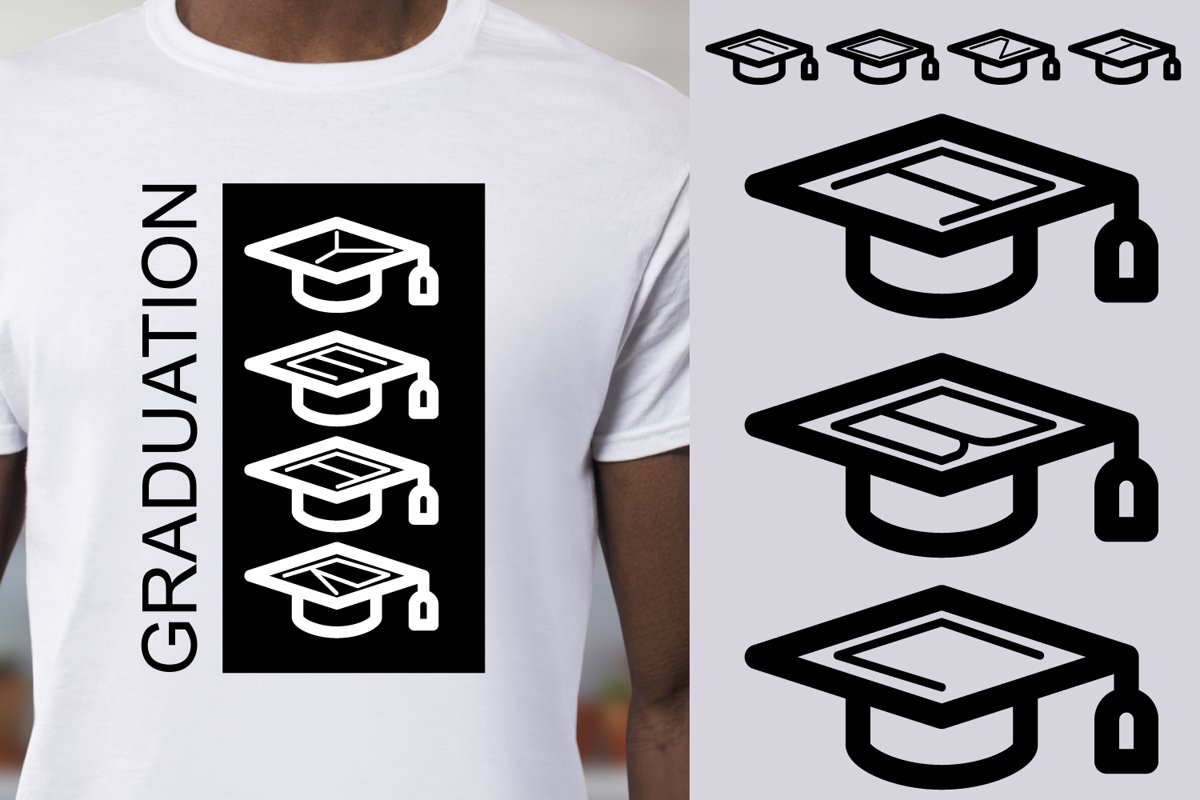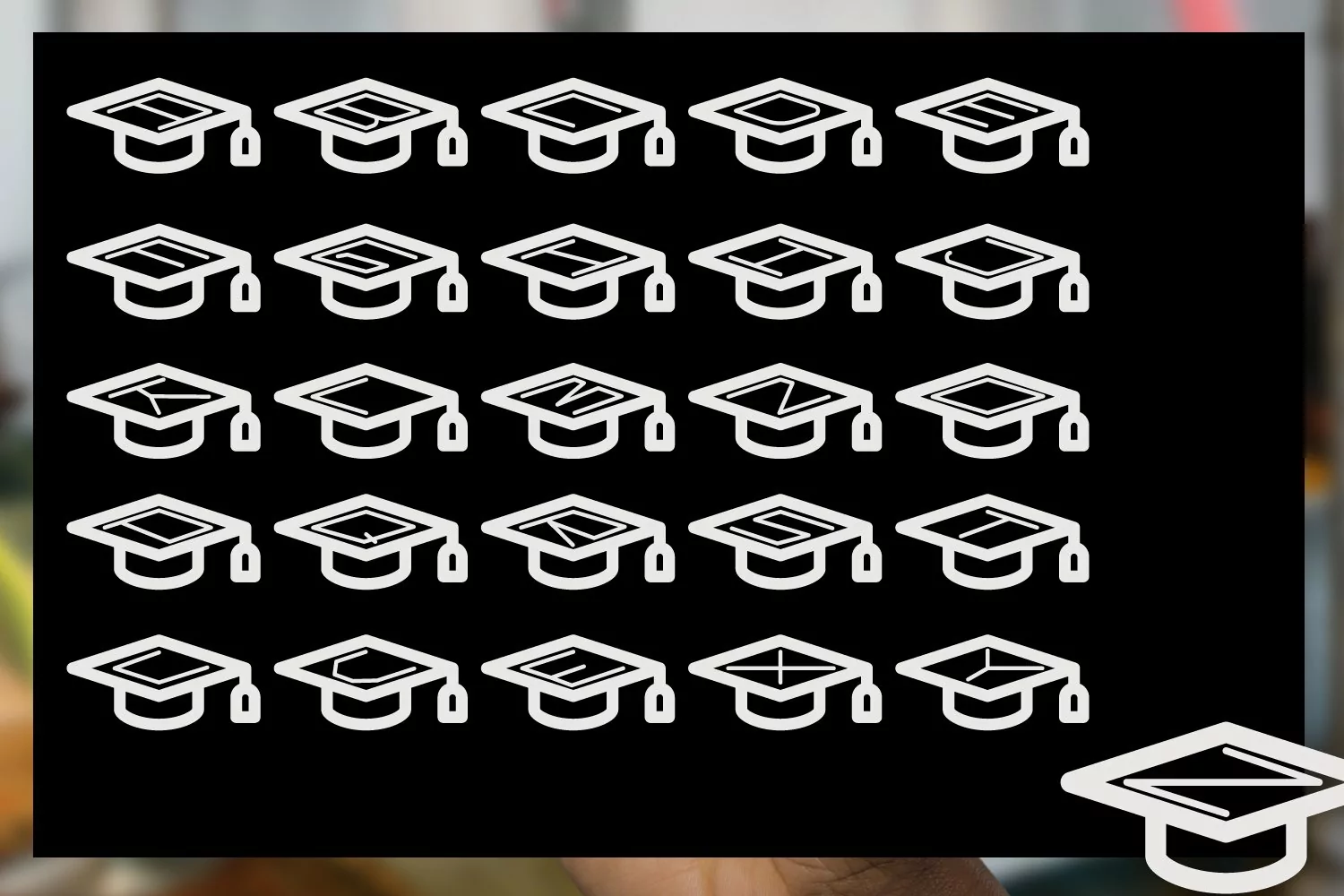
Presenting Cute font for you. This Special Paper Cut Graduation Font can be used in tons of projects specially in child and new born projects. You can use it for craft purpose and this will looks great on shirts, printing material and other stuff.
2- Letters A to Z
3- Super Cute and Creative, Papercut Style